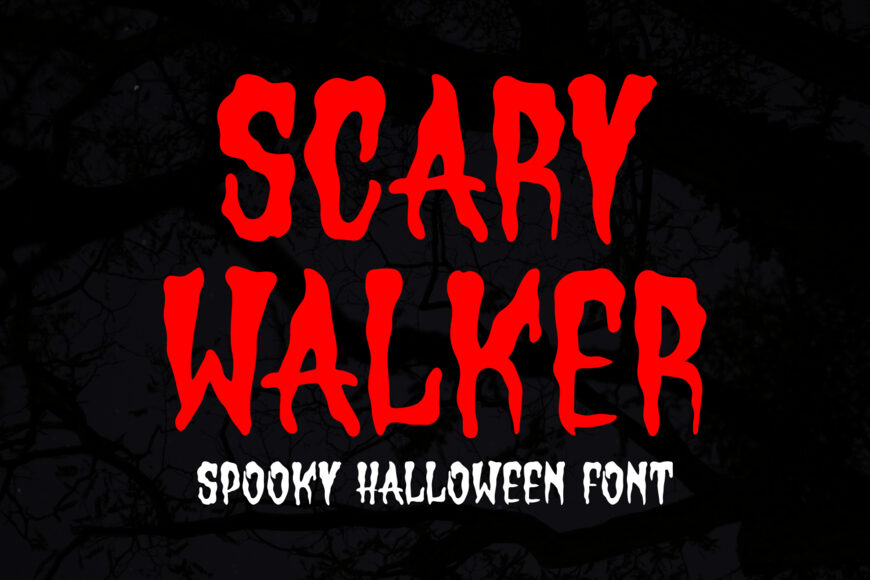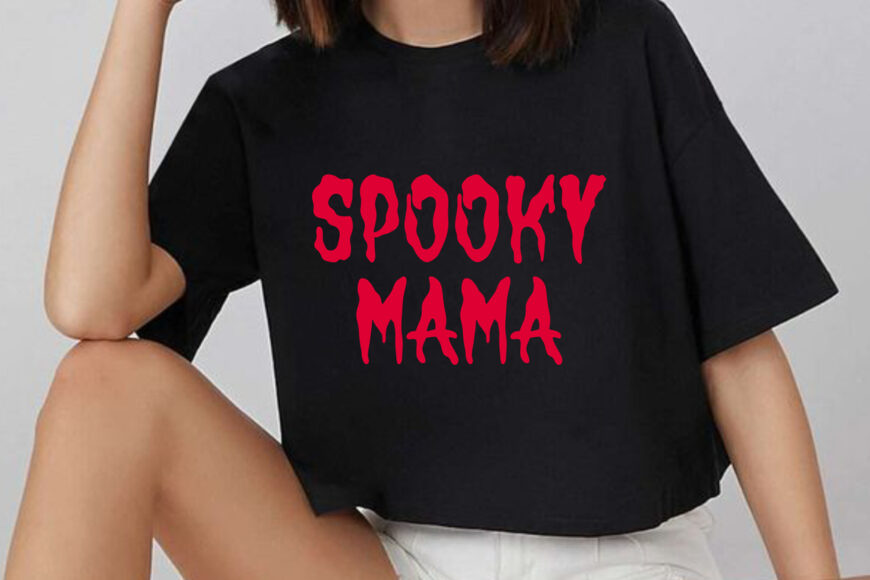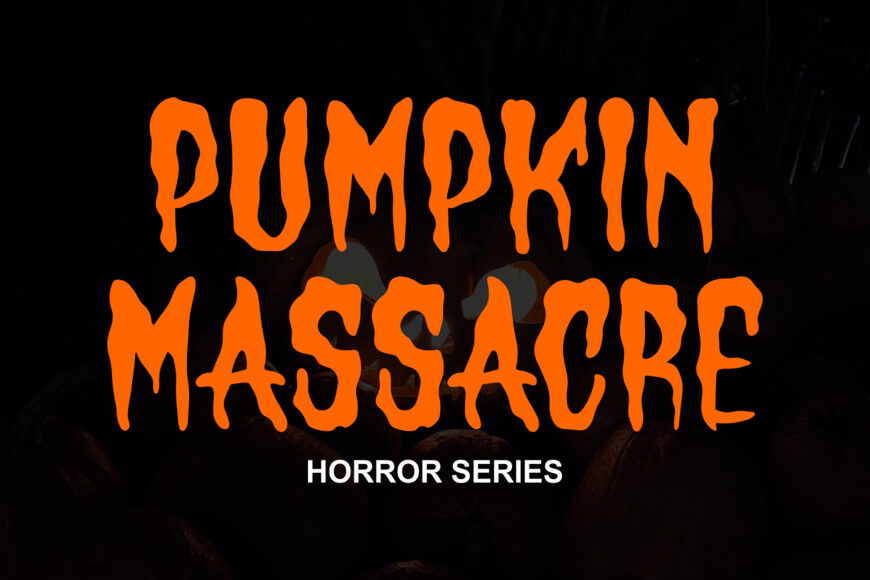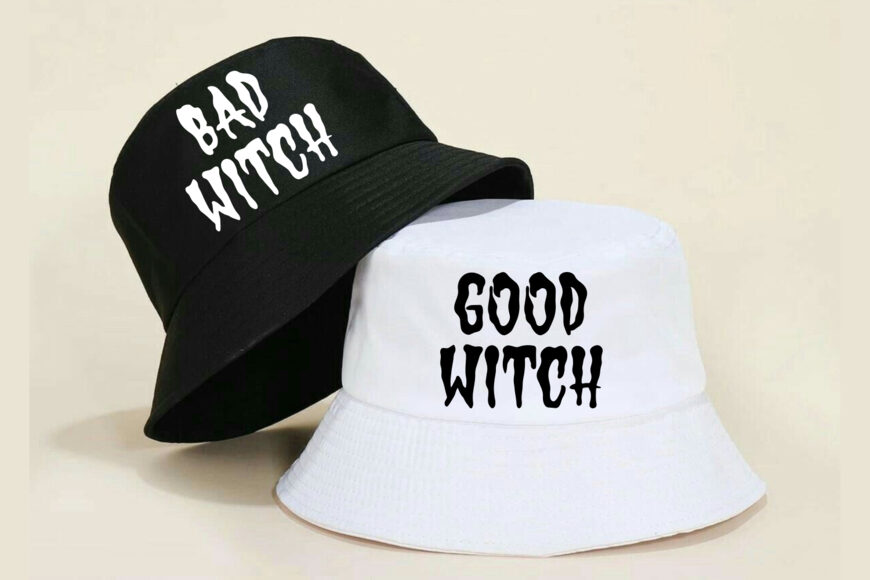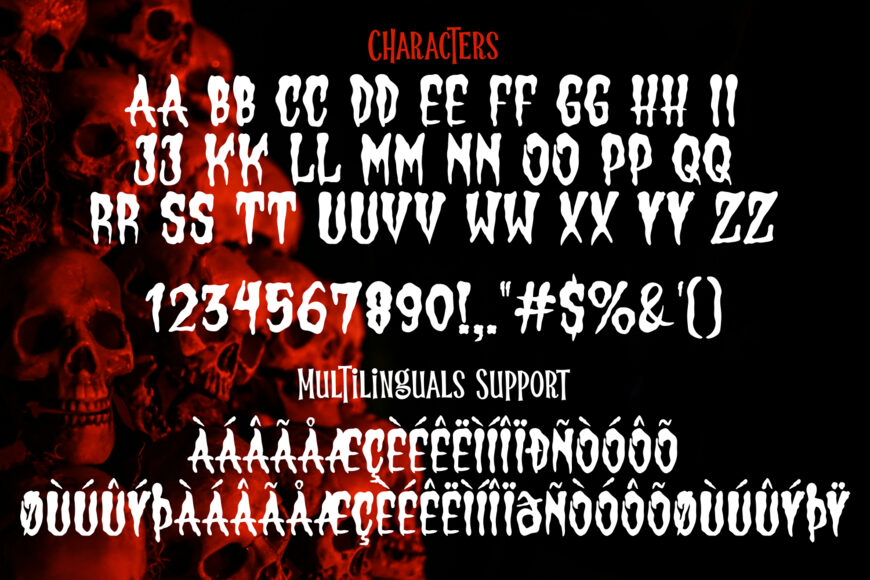
The Scary Walker font is a spooky Halloween typeface with jagged edges and uneven letters. It looks like it’s dripping and crawling, perfect for creating eerie, unsettling messages.